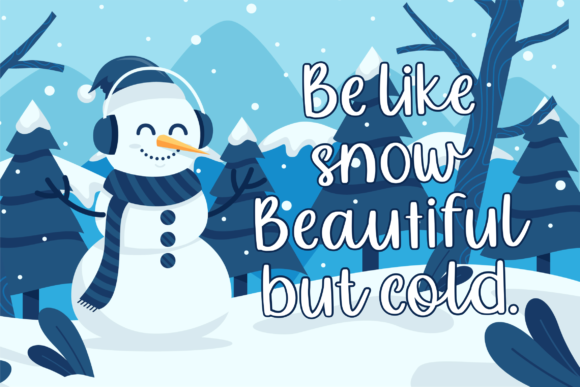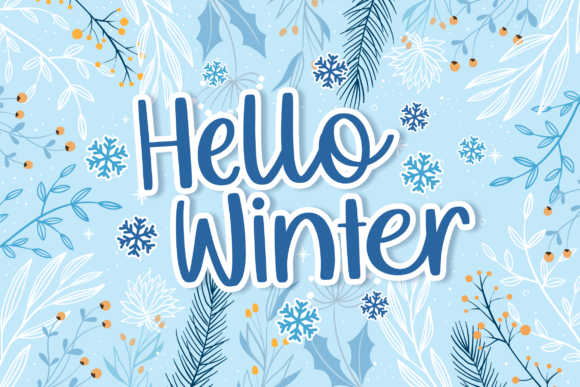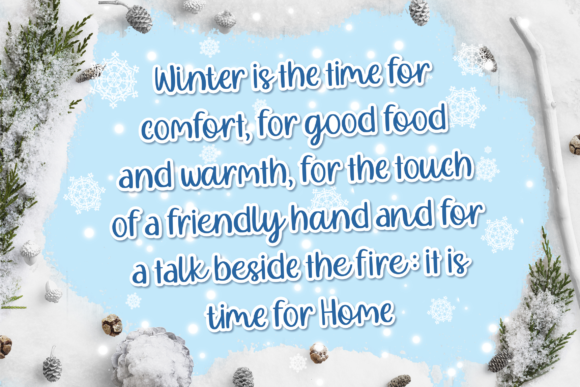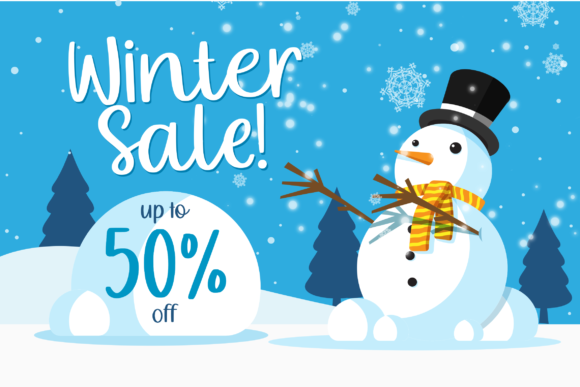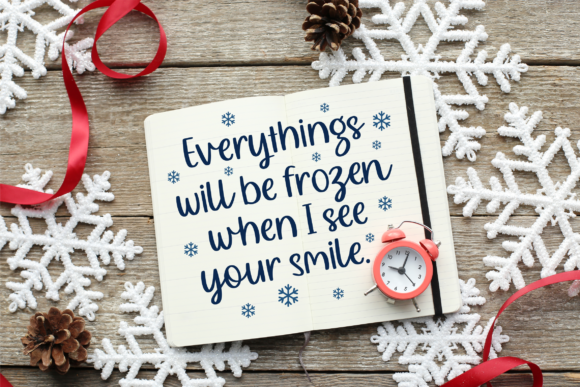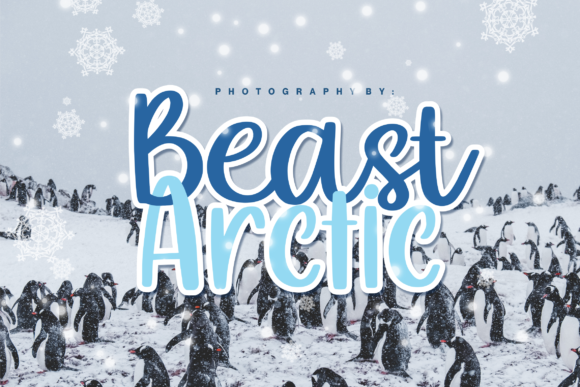
Introduction to Mealky Winter Font
Mealky Winter is a simple, natural and adaptable handwritten font.
Dainty and joyful, this font will be ideal for writing wedding invitations, cards or any other design that may need a romantic, personalized touch .